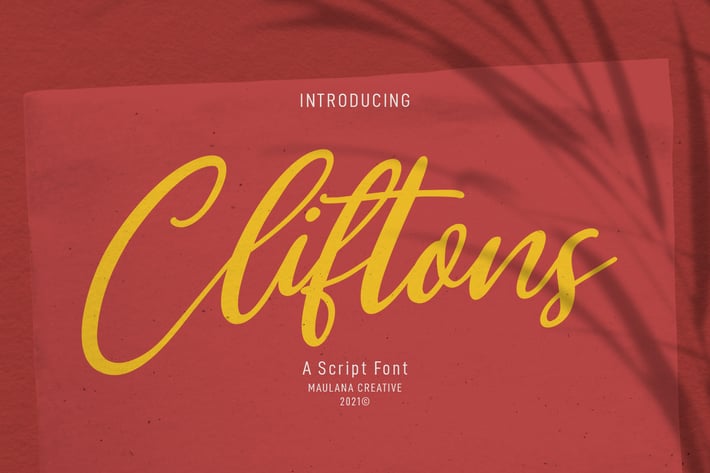
Clifttons Casual Signature Font
Clifttons is a Beauty yet casual signature font. With light stroke, slanted, unique and fun character with a bit of ligatures. To give you an extra creative work. Clifttons font support multilingual more than 100+ language. This font is good for logo design, Social media, Movie Titles, Books Titles, a short text even a long text letter and good for your secondary text font with sans or serif. Make a stunning work with Clifttons font.